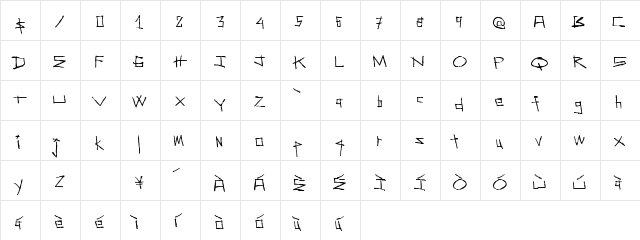
SecondAvenue Regular
Design Context for SecondAvenue Typeface
SecondAvenue is a composed and adaptable typeface that performs quietly and consistently across a wide range of design contexts. The condensed width makes it efficient for tight spaces without sacrificing legibility.